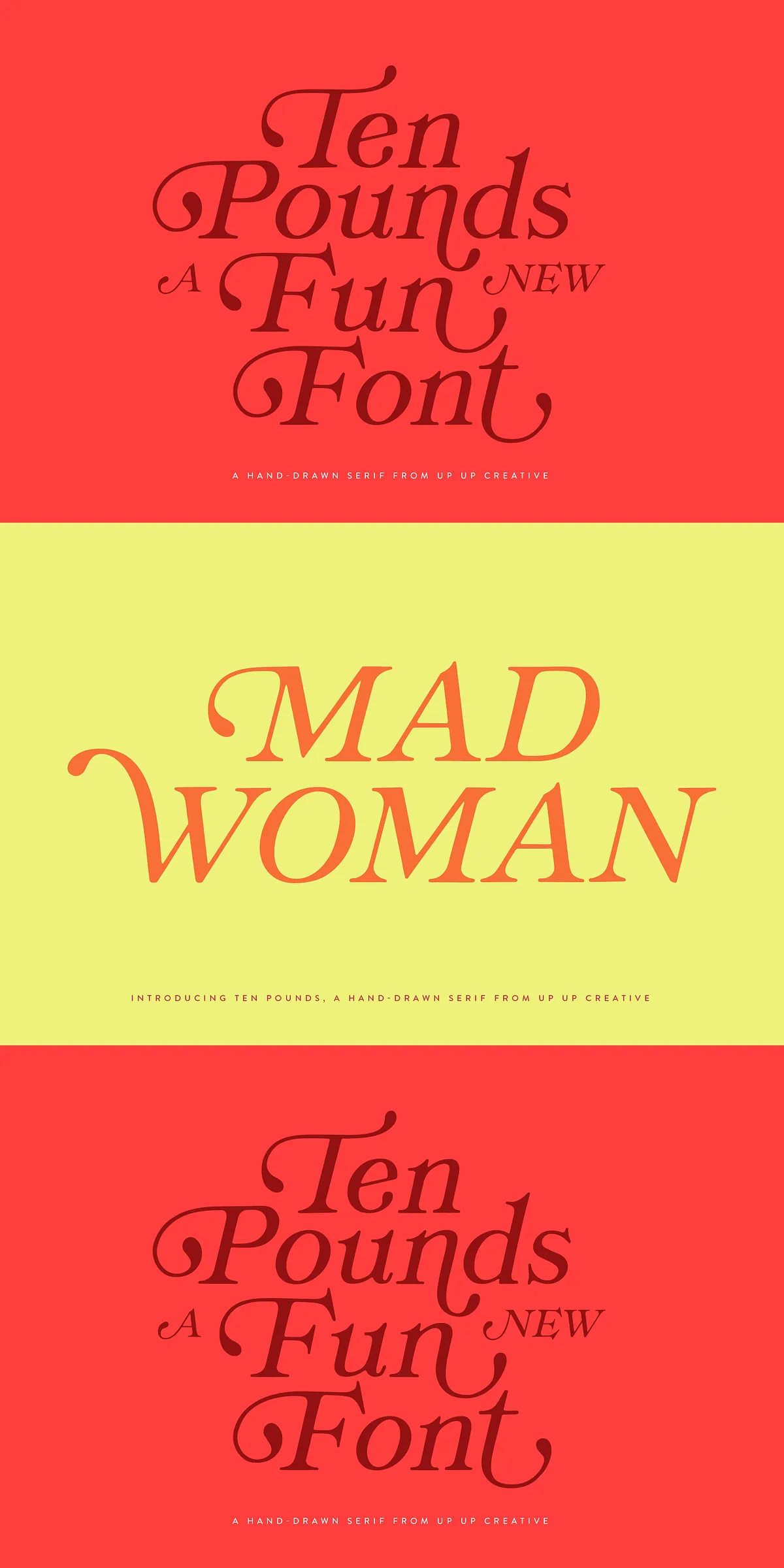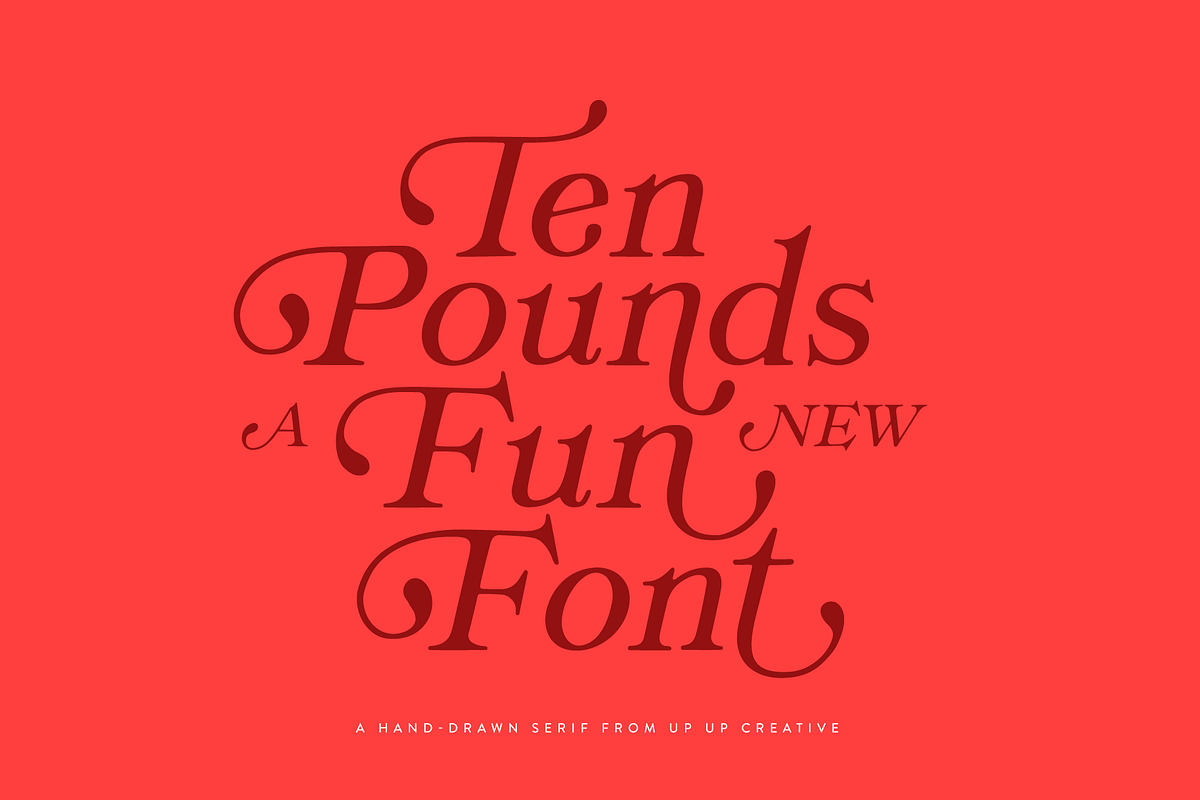
Ten Pounds is a lively and engaging hand-drawn serif font that brings personality and charm to your creative projects. Designed with a playful spirit, this font is packed with character and an extensive set of glyphs, making it an excellent choice for a wide range of design applications. Whether you are working on branding, poster design, t-shirts, invitations, children’s materials, or editorial layouts, Ten Pounds offers the versatility and style to make your work stand out.
Extensive Glyph Set and OpenType Features
One of the standout features of Ten Pounds is its comprehensive glyph collection. With more than 1300 glyphs, including over 100 ligatures, this font provides a rich typographic palette that allows for creative expression and detailed customization. The font supports a variety of OpenType features such as stylistic sets, character variants, initial and final forms, which enable you to tailor the appearance of your text to suit your design vision.
Multilingual and Currency Support
Ten Pounds also includes multilingual support, covering a broad range of languages and scripts, making it suitable for international projects. Additionally, it features multiple currency symbols, ensuring that your designs can accommodate diverse financial contexts without compromising style or clarity.
Designed for Professional Use
Ideal Applications for Ten Pounds
Thanks to its hand-drawn charm and extensive features, Ten Pounds is perfect for a variety of creative projects, including:
- Branding: Develop unique and memorable brand identities that convey personality and warmth.
- Poster Design: Create eye-catching posters with playful and expressive typography.
- T-Shirt and Apparel Design: Design stylish and fun graphics for clothing and merchandise.
- Invitations and Children’s Materials: Craft engaging invitations and educational materials with a friendly, approachable style.
- Editorial Design: Enhance magazines, books, and other publications with distinctive hand-drawn typography.
Why Choose Ten Pounds?
Ten Pounds stands out as a font that combines fun, creativity, and professional versatility. Its extensive glyph set and OpenType features provide designers with the tools to create unique and expressive typography that captures attention and communicates effectively. Whether you are designing for print or digital media, Ten Pounds offers the flexibility and style to bring your ideas to life.